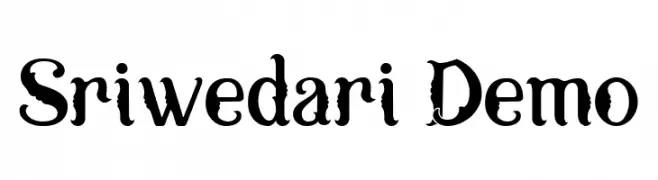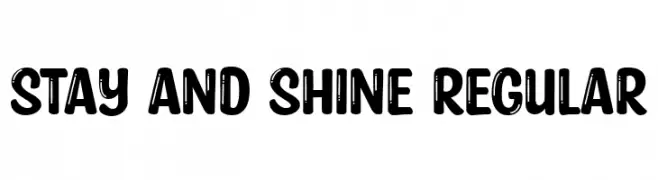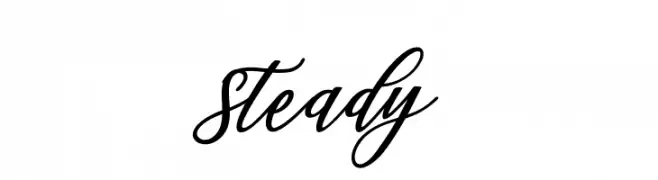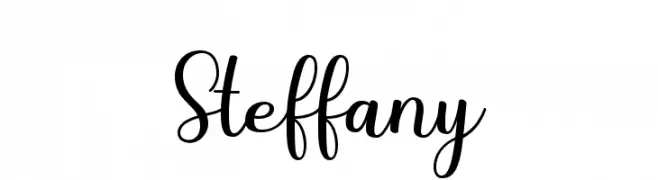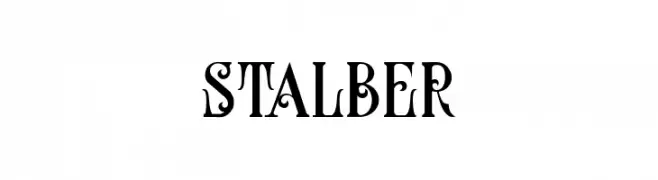
A bold, geometric, and italic font with a futuristic and angular design.
A decorative and ornate font with bold strokes and intricate detailing.
A lively handwritten font with fluid, irregular strokes and a casual slant.
An ornate and decorative serif font with intricate details and flourishes.
A playful, rounded font with smooth curves and a friendly appearance.
A lively and elegant script font with flowing, cursive letters and ornate flourishes.
A bold, energetic handwritten font with dynamic strokes and a brush-like texture.
A bold, playful font with a hand-drawn, vintage texture.
A flowing, elegant cursive font with smooth, continuous strokes.
A cursive, handwritten font with elegant loops and swashes.